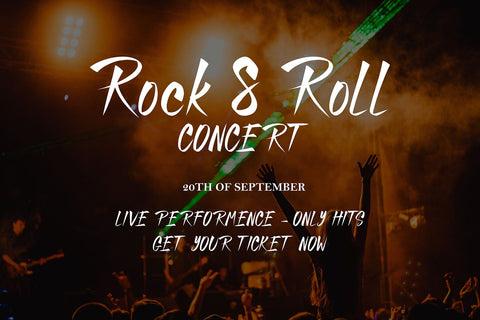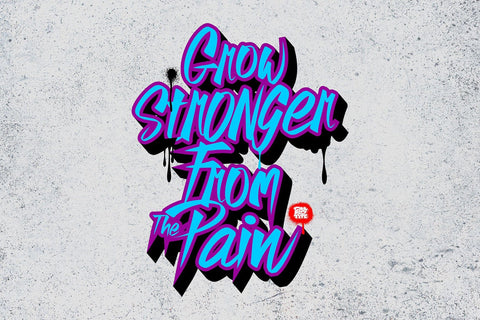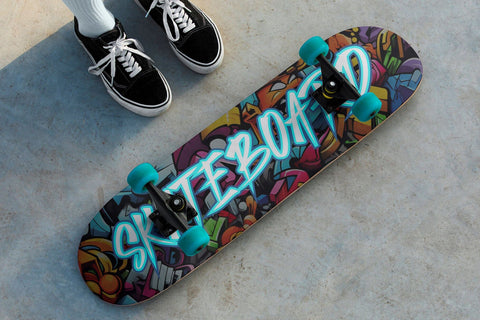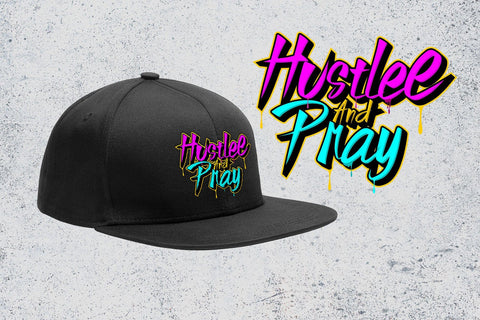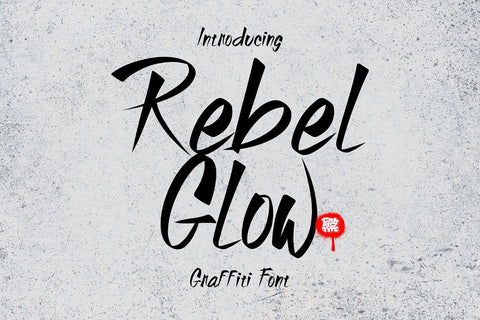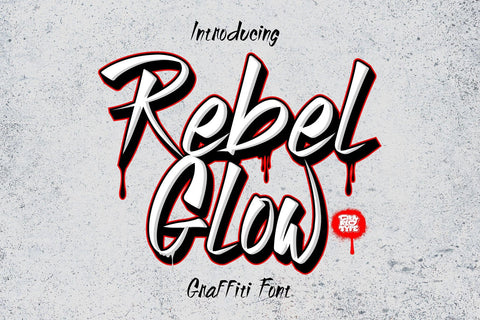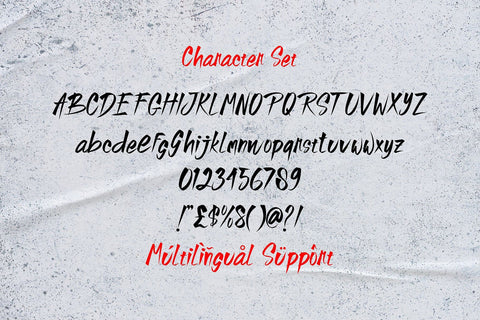
Rebel Glow - A Thin Graffiti Font
Rebel Glow is a thin graffiti font with a sleek and edgy appearance. Its minimalistic style makes it perfect for modern urban designs, street art-inspired projects, and creative branding. Despite its slender lines, the font maintains a strong presence, offering a rebellious yet refined look for any project that wants to capture the essence of street culture with a subtle touch.